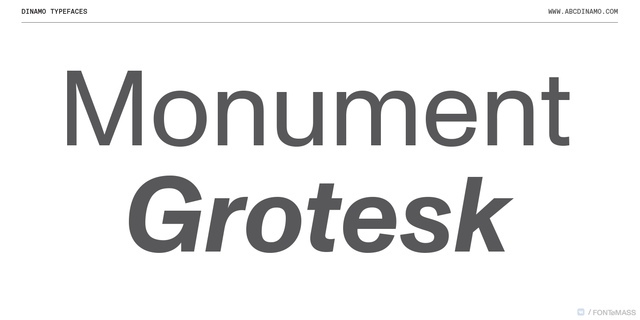
Monument Grotesk Font
Monument Grotesk Font is perfect for architectural firm branding, modern art museum exhibitions, minimalist design studios, contemporary fashion brands, tech startup logos, urban development projects, progressive architecture presentations, institutional communications, modernist furniture companies, and cutting-edge cultural organizations. This bold typeface excels in applications where architectural authority, modernist principles, and institutional gravitas are fundamental design requirements.
Monument Grotesk Font is exciting because it embodies the monumental strength and geometric precision of modernist architecture through its commanding letterforms and systematic construction. Its robust character shapes feature the bold simplicity and structural integrity that define institutional architecture, with consistent stroke weights and geometric proportions that create an immediate sense of permanence and authority. The font's architectural personality delivers powerful visual impact while maintaining exceptional clarity across all scales from intimate communications to monumental signage.
The Monument Grotesk Font family includes Regular, Bold, Light, Condensed, Extended, and Mono variations, each maintaining the core architectural philosophy while offering different structural expressions. The family features comprehensive character sets including architectural symbols, mathematical operators, and institutional marks. Advanced OpenType features provide stylistic alternates, contextual ligatures, and precise spacing that optimize performance for professional architectural documentation and institutional communications.
Professional designers and architects choose Monument Grotesk Font for its ability to convey institutional authority, architectural permanence, and modernist sophistication. The font's commanding presence works exceptionally well in corporate environments where structural integrity and professional gravitas are paramount. Its systematic design makes it ideal for institutions seeking to communicate stability, innovation, and architectural excellence.
The monumental character of Monument Grotesk Font transforms institutional communications with its architectural strength and modernist authority. Its structural appeal resonates with professional audiences while providing the clarity and permanence required for serious institutional communications and architectural presentations.